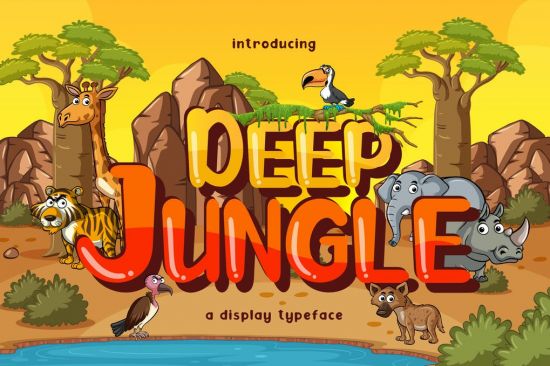
Deep Jungle is a beautiful display font for a variety of designs. Deep Jungle can be used for products such as handcraft, product packaging, quotes, product design, craftsmen, lanels, photography, watermarks, logos & branding. Everything can be accessed using software that supports Opentype, such as Adobe Indesign, Adobe CS IIustrator, Adobe Photoshop CC, and Corel Draw.